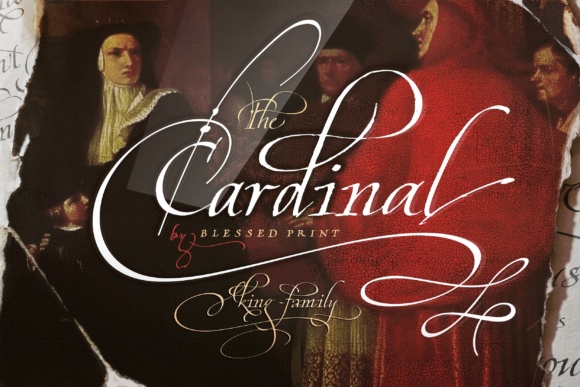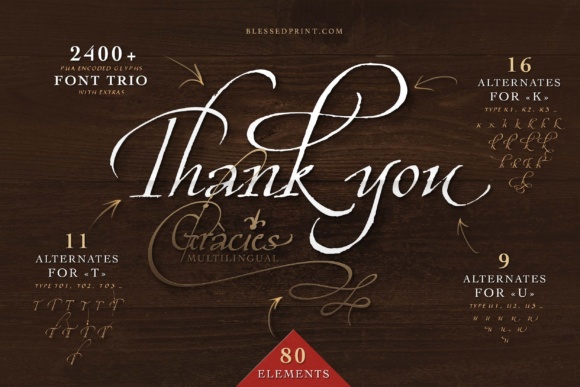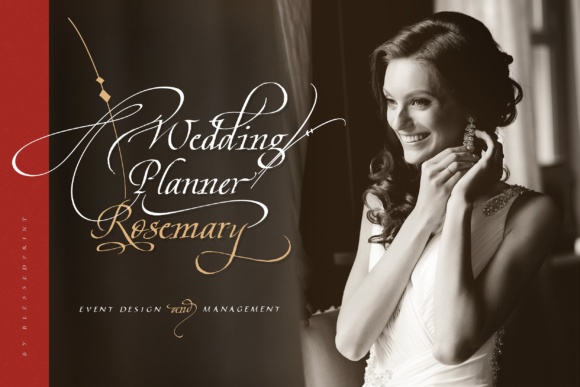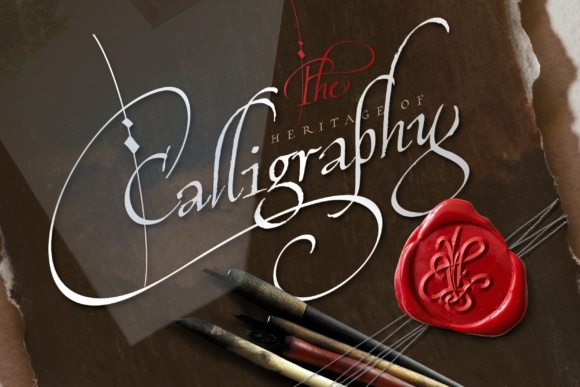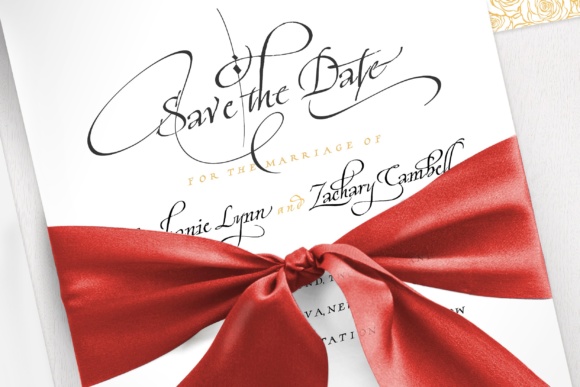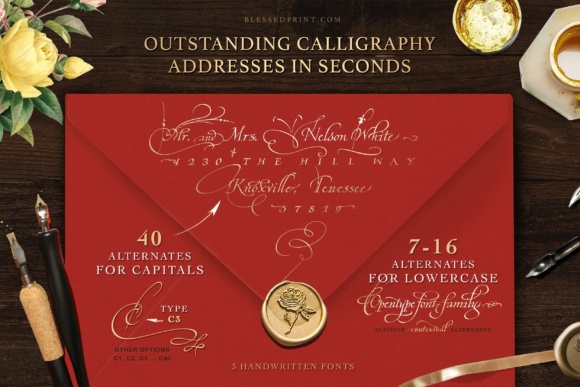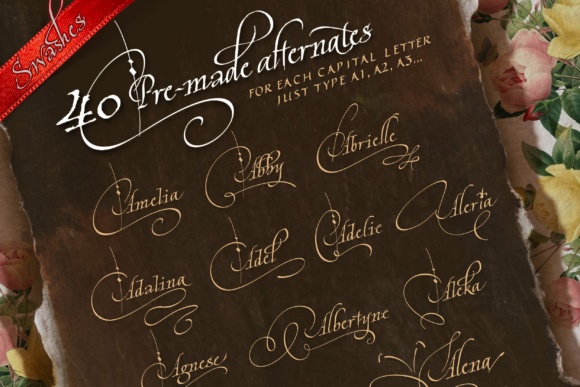
Cardinal Font
About Cardinal Font
The Cardinal is a traditional italic script that offers plenty of elegant swashes and swirls. It is ideal for wedding and anniversary invitations, postcards and menus.
The Cardinal is guaranteed to add a clean vintage feel to your next project.